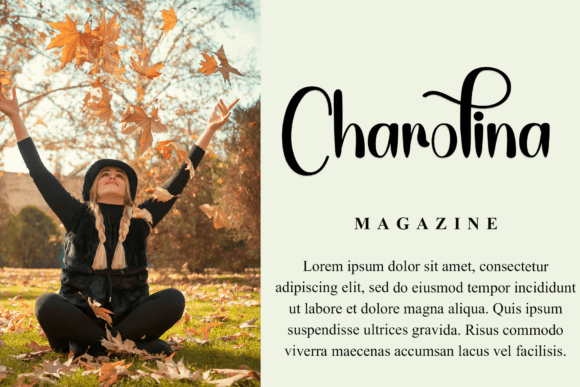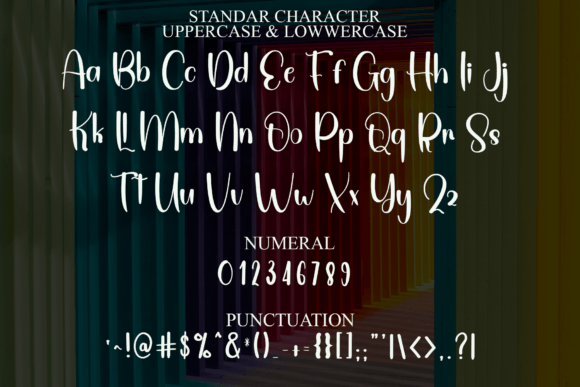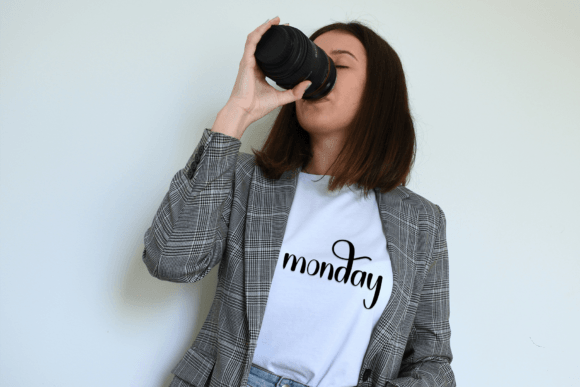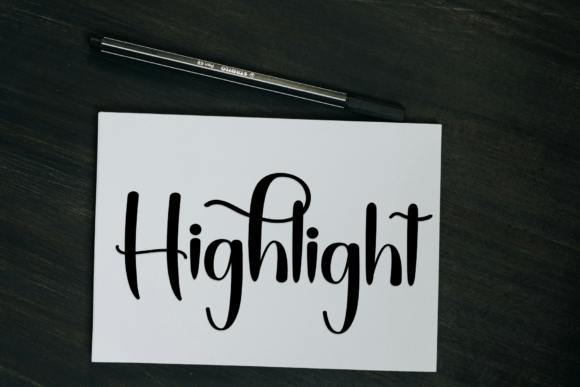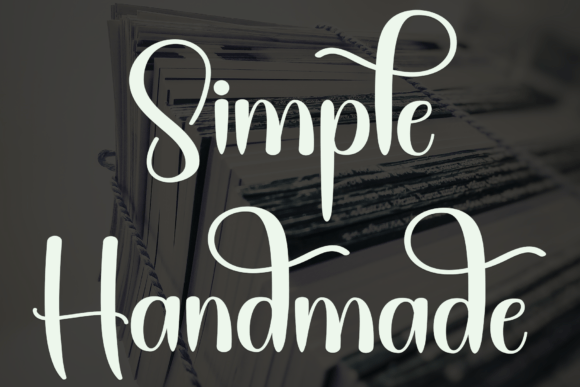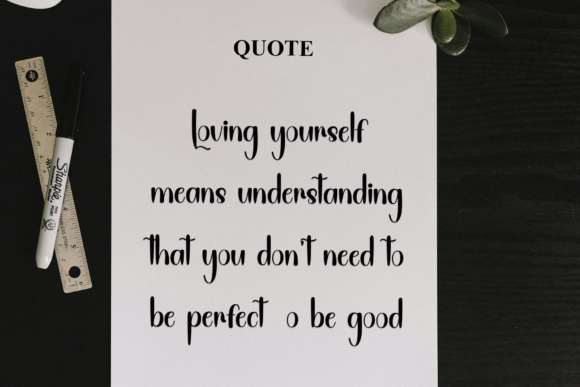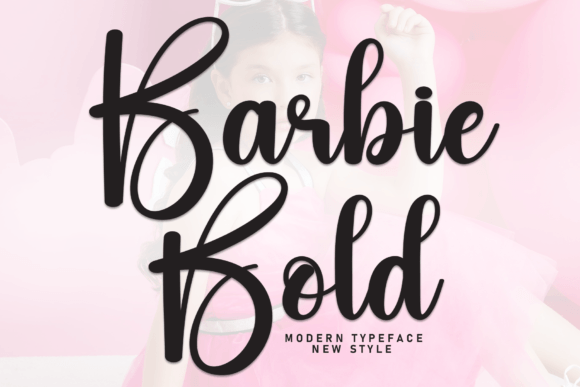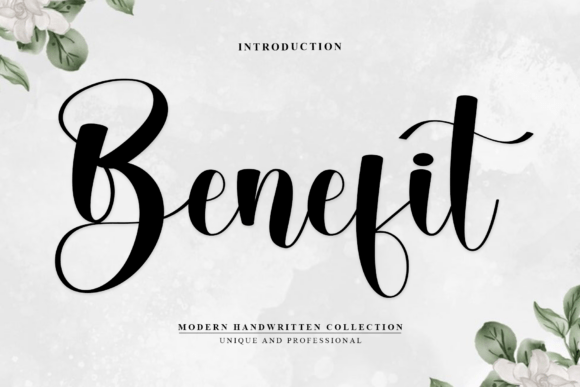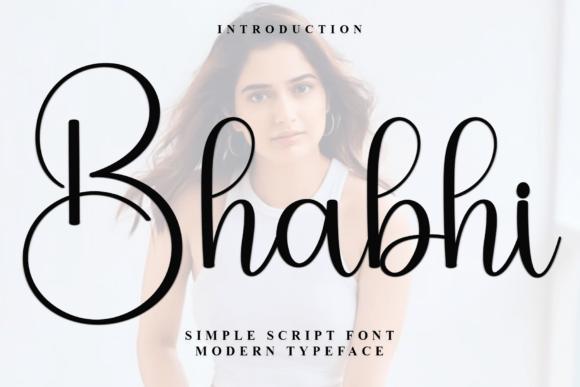
The Perfect Companion for Your Creative Projects
Have you ever stared at a blank page, struggling to bring your design ideas to life? It’s a feeling we’ve all been through, but what if we told you that the key to unlocking your creativity lies in a single, elegant font? Introducing Bundle Font, a delicate and timeless typography that’s sure to elevate your designs to the next level.
With its beautiful and well-balanced characters, Bundle Font is the perfect addition to any creative project. Whether you’re a graphic designer, writer, or artist, this versatile font is sure to match your unique style and bring your ideas to life. Its PUA coding also makes it easy to access all the amazing glyphs and ligatures, giving you endless possibilities to experiment and innovate.
BUNDLE FONT KEY FEATURES
- High-Quality Typography: Our font features precise contours, subtle hinting, and optimized kerning, resulting in crisp and clear text at resolutions up to 1024 dpi.
- Extensive Character Set: BUNDLE FONT includes a comprehensive set of characters, including Latin, Cyrillic, Greek, and Devanagari scripts, as well as a wide range of punctuation and symbols.
- Style Variations: Our font offers a range of styles, including Light, Regular, Medium, Bold, and Black, allowing users to choose the perfect weight for their design needs.
Bundle Font Review
As a designer, I was excited to dive into the Bundle Font and see how it could elevate my projects. Here’s my honest take on what I liked and didn’t like.
- Beautiful, modern aesthetic: Bundle Font has a sleek and sophisticated look that’s perfect for contemporary designs.
- High-quality font files: The font files are crisp and clear, with no noticeable pixelation or distortion.
- Excellent font pairing options: Bundle Font comes with multiple font weights and styles, making it easy to find the perfect pairing for your project.
- Support for various languages: The font supports a wide range of languages, making it a great choice for international projects.
- Limited font family: While the individual fonts are high-quality, the overall font family feels a bit limited in terms of style and versatility.
Overall, I think Bundle Font is a solid choice for designers who want a modern, high-quality font for their projects. While it has some limitations, the benefits far outweigh the drawbacks. With a little creativity and experimentation, I’m confident that Bundle Font can help elevate your designs to the next level.